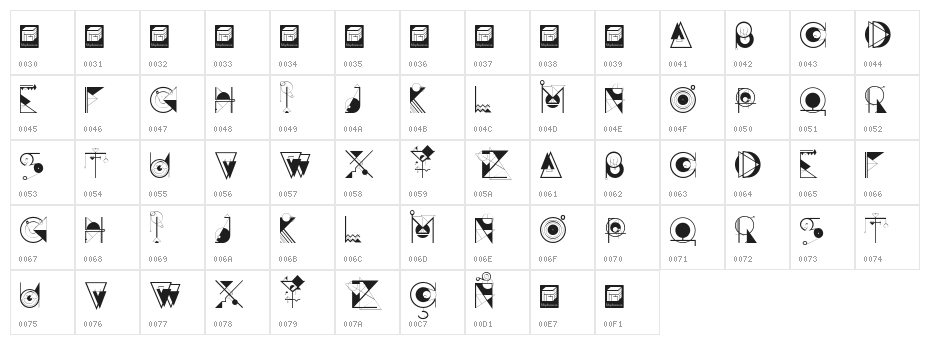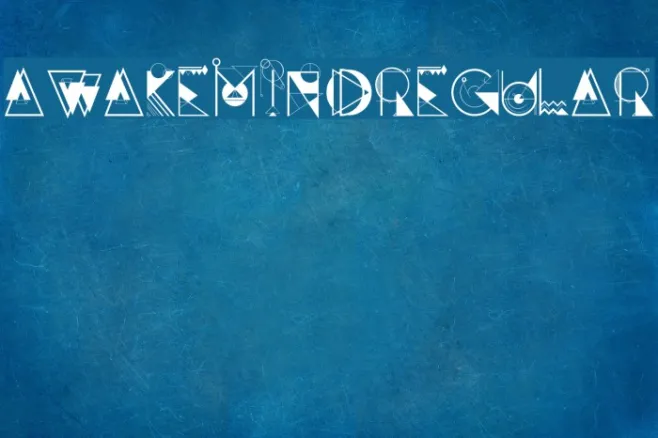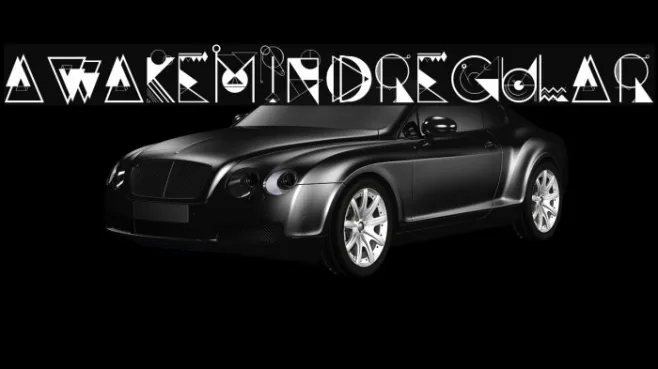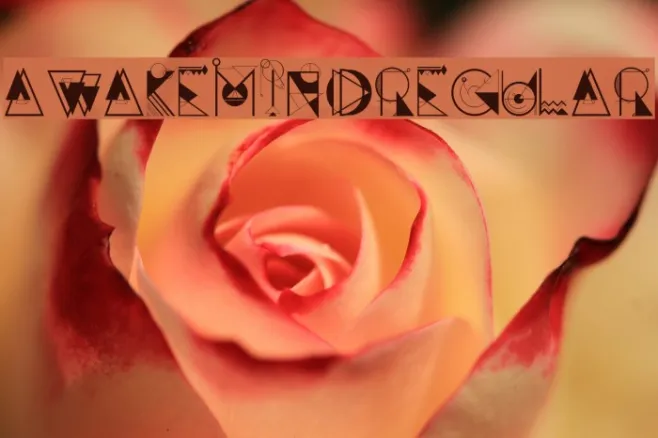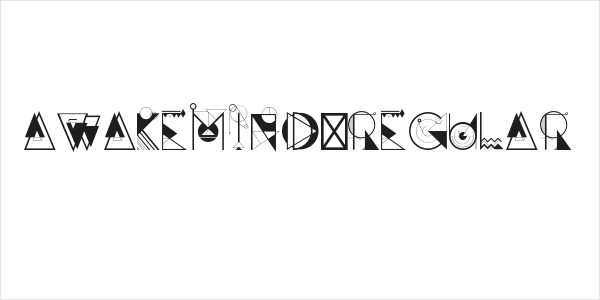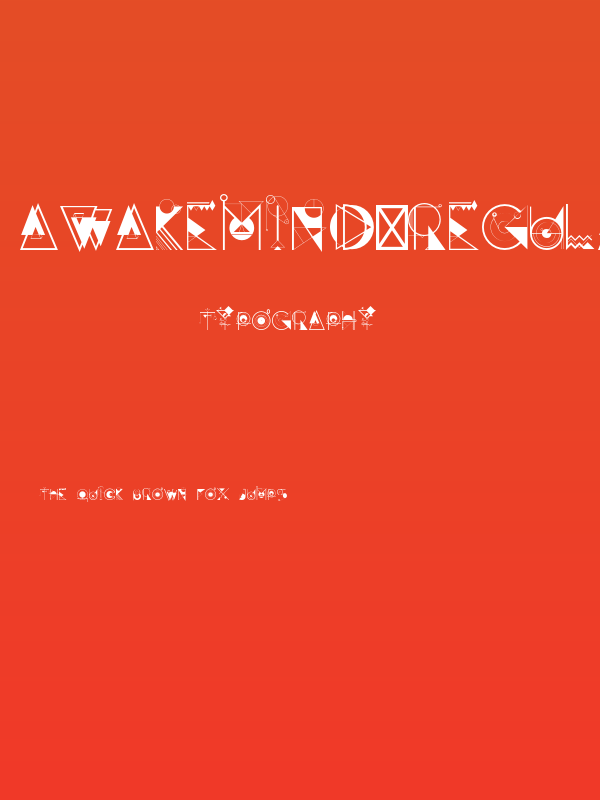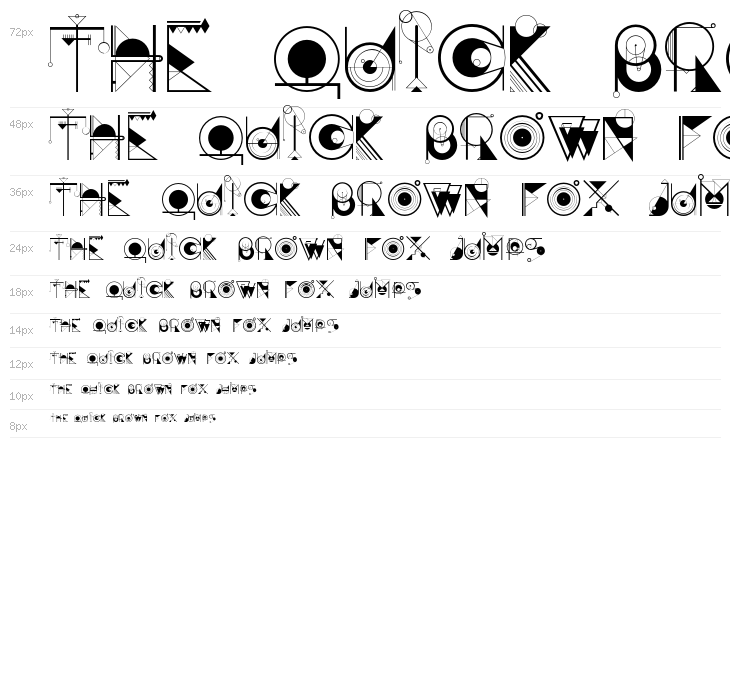
AWAKEMIND-Regular Font
AWAKEMIND-Regular Description
This font is a highly decorative and artistic typeface, characterized by its geometric and abstract design elements. Each letter is uniquely crafted with intricate patterns, shapes, and lines, creating a visually striking appearance. The font combines elements of modern art and abstract geometry, making it stand out with its bold and creative style. The use of circles, triangles, and other geometric forms gives it a futuristic and avant-garde feel. It's perfect for projects that require a strong visual impact and a touch of artistic flair.
| Overall Style | Modern, Artistic, Geometric |
| Use Case | Logos, Posters, Artistic Projects |
| Proposed Projects | Ideal for art projects, modern branding, album covers, posters, and any design work that seeks a bold and artistic statement. |